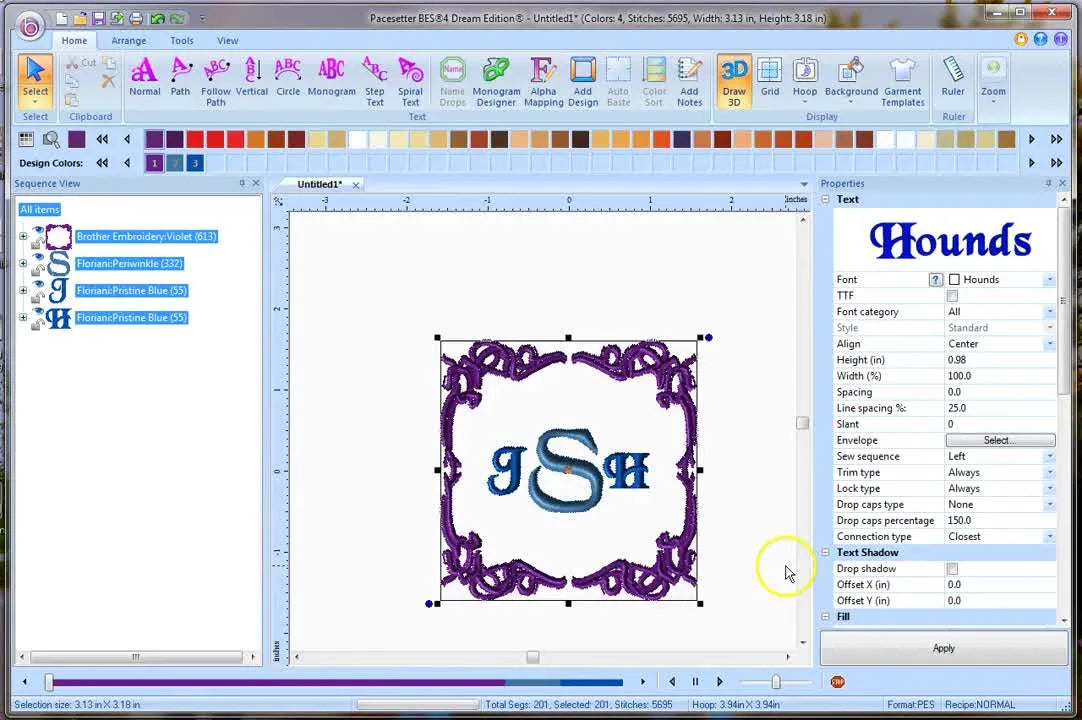
You’re not alone if monograms feel like they should be the easiest job in the world… but somehow turn into 45 minutes of clicking, undoing, and second-guessing.
In this lesson, we are analyzing a workflow by Jay from A Stitch in Time using Brother BES 4 Dream Edition. While the software is the tool, our focus is the strategy: handling the "customer wants it today" panic (receiving blankets, confirmation bibs, quick gifts) where speed matters, but a single mistake ruins the garment.
We will move beyond the buttons to understand the physics of the stitch. I will teach you how to build a "Monogram Recipe"—a repeatable combination of software settings and physical stabilizers—that allows you to scale from a reliable hobbyist to a production powerhouse.
The “Don’t Panic” Moment: The Psychology of the Interface directly
Jay starts by clicking the Monogram Designer icon. A dedicated window opens, showing a default monogram (an “A”) with decorative stars.
Why beginners freeze: It looks like you’ve been kicked out of the main program. The Expert View: Think of this window as a "Staging Area." You are building a composite package here. Nothing is permanent until you send it to the machine.
Phase 1: The "Hidden" Prep (Do This Before You Touches the Keyboard)
Before you touch fonts, you must define the physical reality of the job. In the embroidery industry, we call this "Pre-Production Calibration."
Jay’s example is the classic three-letter monogram: First, Last, Middle (Left, Center, Right).
The "Ghost Steps" Professionals Do Automatically:
- Fabric Diagnosis (Tactile Check): Close your eyes and feel the material. Is it a receiving blanket (plush, stretchy, unstable) or a bib (structured, woven, stiff)?
Hoop & Stability Strategy:
- For structured items, a standard hoop is fine.
- For plush/thick items (like the blanket in this example), standard hoops struggle. The inner ring pops out, or you get "hoop burn" (crushed fibers).
- Trigger: If you find yourself wrestling the fabric or hurting your wrists to close the hoop...
Prep Checklist (The "No-Go" List)
- Name Logic: Confirm format (First-LAST-Middle is standard; First-Middle-Last is for block fonts).
- Target Size: Decide height now (e.g., 4.00 inches). Resizing later introduces density risks.
- Hidden Consumable: If stitching on a blanket, do you have a Water Soluble Topper? (Essential to keep stitches from burying in the pile).
- Hoop Check: Does your chosen hoop fit the garment and the machine arm clearance?
Make the Letters Behave: The "Apply" Button Discipline
In the right-side properties panel, Jay edits his letters: Text A = J, Text B = S, Text C = H.
Then he clicks Apply.
The Cognitive Trap: In most modern apps, you type and it appears. In embroidery software, you must "submit" the command. If you type and nothing happens, you haven't broken the program.
Sensory Feedback Loop:
- Action: Click Apply.
- Visual Check: The center preview must blink and update. If the "A" remains, the change did not take.
Font Selection: The "Hounds" Font and the Density Reality
Jay selects the Hounds font from the dropdown.
Expert Reality Check: Not all digital fonts survive the physical world. Fonts with extremely thin serifs (the little feet on letters) can vanish in high-pile fabrics (like blankets).
- The Test: Look at the satin columns (the thick bars of silence). If a column looks wider than 7mm on screen, it might loop or snag. If it looks thinner than 1mm, it might bury in the fuzz.
Action: If choosing a serif font for a blanket, you must use a topper (Solvy) to prop up the thread.
Decors: The Art of Subtraction
Jay demonstrates swapping the star decor for shells, or removing them entirely.
The Speed Trick: Uncheck the Decors box at the bottom. The Nuance: If you later decide to re-add them, check your spacing. Decorators push the frame outward, increasing the total sewing field usage.